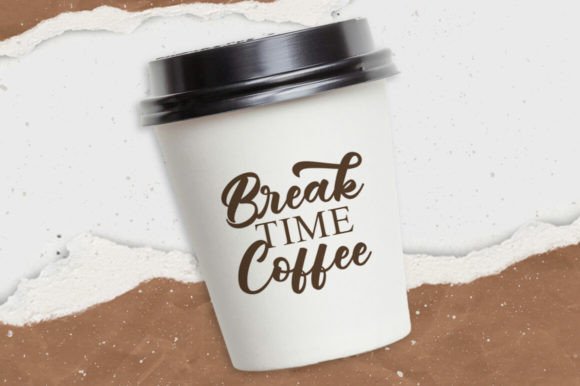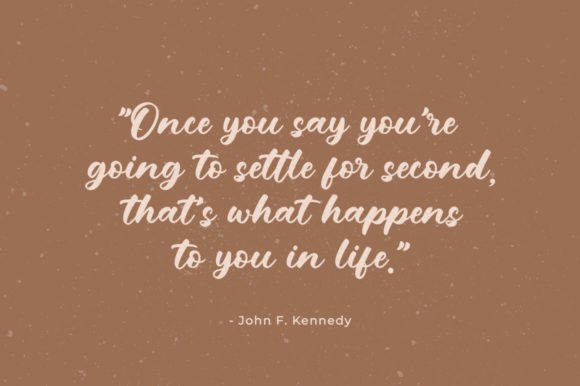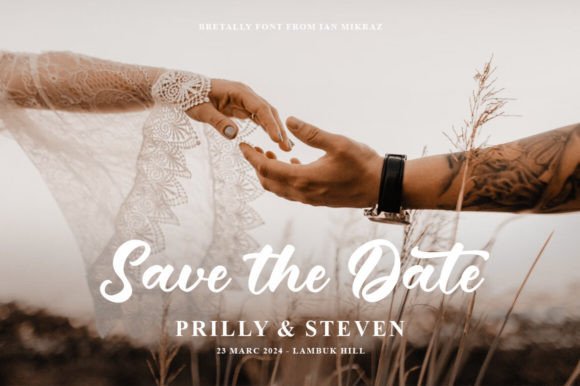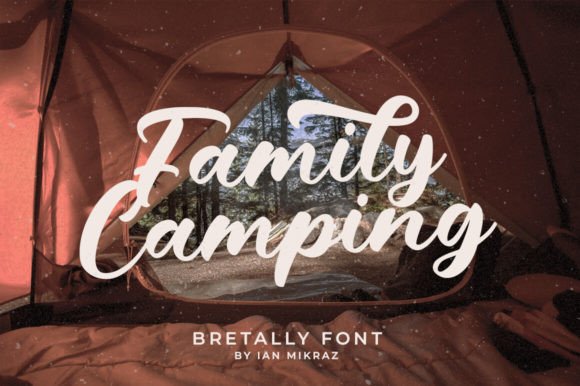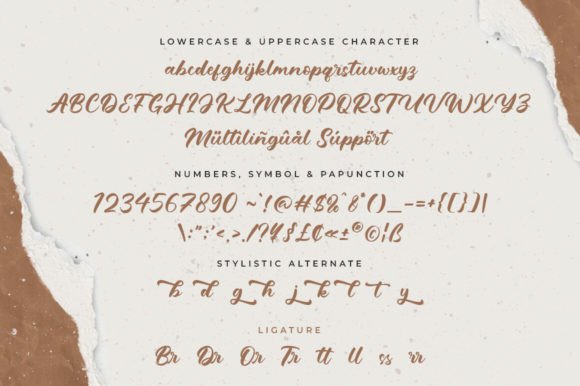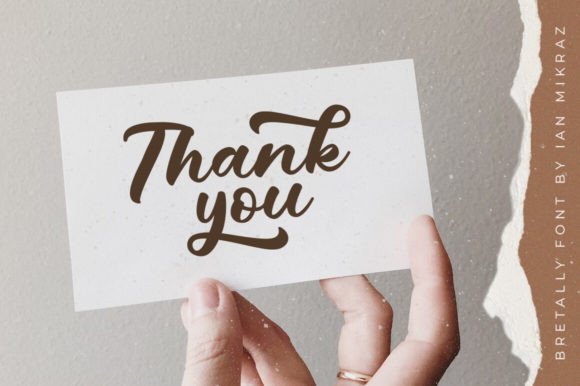
Discover the Charm of Bretally Font: Elevate Your Designs with a Personal Touch
In the world of typography, few fonts manage to capture the essence of authentic handwriting as beautifully as Bretally. This charming handwritten font is designed to bring a personal touch to any project, making it an ideal choice for designers and crafters looking to add warmth and character to their designs. Whether you’re working on invitations, greeting cards, branding, or any other creative project, Bretally is sure to make a lasting impression.
The Unique Style of Bretally
Bretally’s unique and flowing style is what sets it apart from other fonts. Its handwritten charm is evident in every letter, making it perfect for projects that require a personal and approachable feel. The font’s authentic handwriting style creates a sense of warmth and connection, allowing designers to craft beautiful and engaging designs that resonate with their audience.
Bretally’s versatility makes it suitable for a wide range of design projects. Here are some of the ways you can use Bretally to elevate your designs:
- Invitations: Create beautiful and personalized invitations for weddings, parties, and other special events.
- Greeting Cards: Design heartfelt and engaging greeting cards for birthdays, holidays, and other occasions.
- Branding: Use Bretally to create a unique and memorable brand identity that reflects your business’s personality.
- Packaging: Add a personal touch to your product packaging and make it stand out on store shelves.
Adapts to Your Creative Vision
Whether you’re aiming for a casual, whimsical look or a more elegant and refined style, Bretally adapts beautifully to your creative vision. The font’s flexibility makes it an excellent choice for designers who want to experiment with different styles and moods.
Why Choose Bretally?
With so many fonts available, why choose Bretally? Here are just a few reasons why Bretally stands out:
- Unique and Authentic: Bretally’s handwritten style is truly one-of-a-kind, making it perfect for designers who want to create unique and memorable designs.
| Font Name | Bretally Font |
| Author | Ian Mikraz |
Bretally is a charming handwritten font that brings a personal touch to any project. Its unique and flowing style captures the essence of authentic handwriting, making it perfect for designers and crafters looking to add warmth and character to their designs. With its ease of use, versatility, and adaptability, Bretally is an excellent choice for anyone looking to elevate their designs and create a lasting impression.